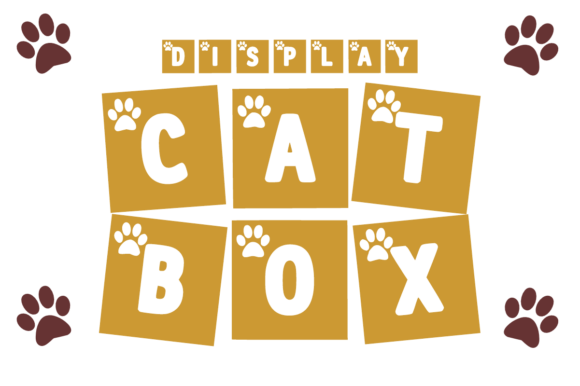
The Purrfect Font: A Deep Dive into Cat Box Font
As a designer, I’ve had my fair share of frustrating moments while searching for the perfect font for a project. I recall working on a branding project for a pet subscription box, struggling to find a font that captured the playful and quirky essence of the brand. That’s when I stumbled upon the Cat Box font, and it was love at first sight! In this article, I’ll share my experience with this unique font, its features, and how to make the most of it in your designs.
A Personal Review: What I Love About Cat Box Font
Here’s what makes Cat Box font a standout in my book:
- ✨ Unique and playful design with boxy letterforms and adorable cat details
- ✅ Strong, square-grid structure makes it easy to align and stack text
- ✅ Extensive OpenType features, including stylistic alternates and glyphs
- ✅ Perfect for pet-related brands, subscription boxes, and playful social media content
While I adore Cat Box font, there are a few minor quirks to be aware of:
- ⚠️ Limited use in formal or professional contexts due to its playful nature
- 🤔 May not be the best choice for body text due to its decorative style
The Story Behind Cat Box Font
The Cat Box font was inspired by the popular feline meme, “if I fits, I sits.” The designer wanted to create a font that captured the playful and quirky essence of cats, while also providing a unique and functional design tool. The result is a font that’s both fun and versatile.
| What is the Cat Box font best used for? | The Cat Box font is perfect for pet-related brands, subscription boxes, and playful social media content. |
| Is Cat Box font suitable for formal or professional contexts? | No, Cat Box font is best used in informal or playful contexts due to its decorative style. |
In conclusion, Cat Box font is a unique and versatile design tool that’s perfect for designers, crafters, and creative hobbyists. Its playful and quirky design makes it ideal for pet-related brands, subscription boxes, and social media content. With its extensive OpenType features and strong, square-grid structure, Cat Box font is sure to add a touch of whimsy to your designs.